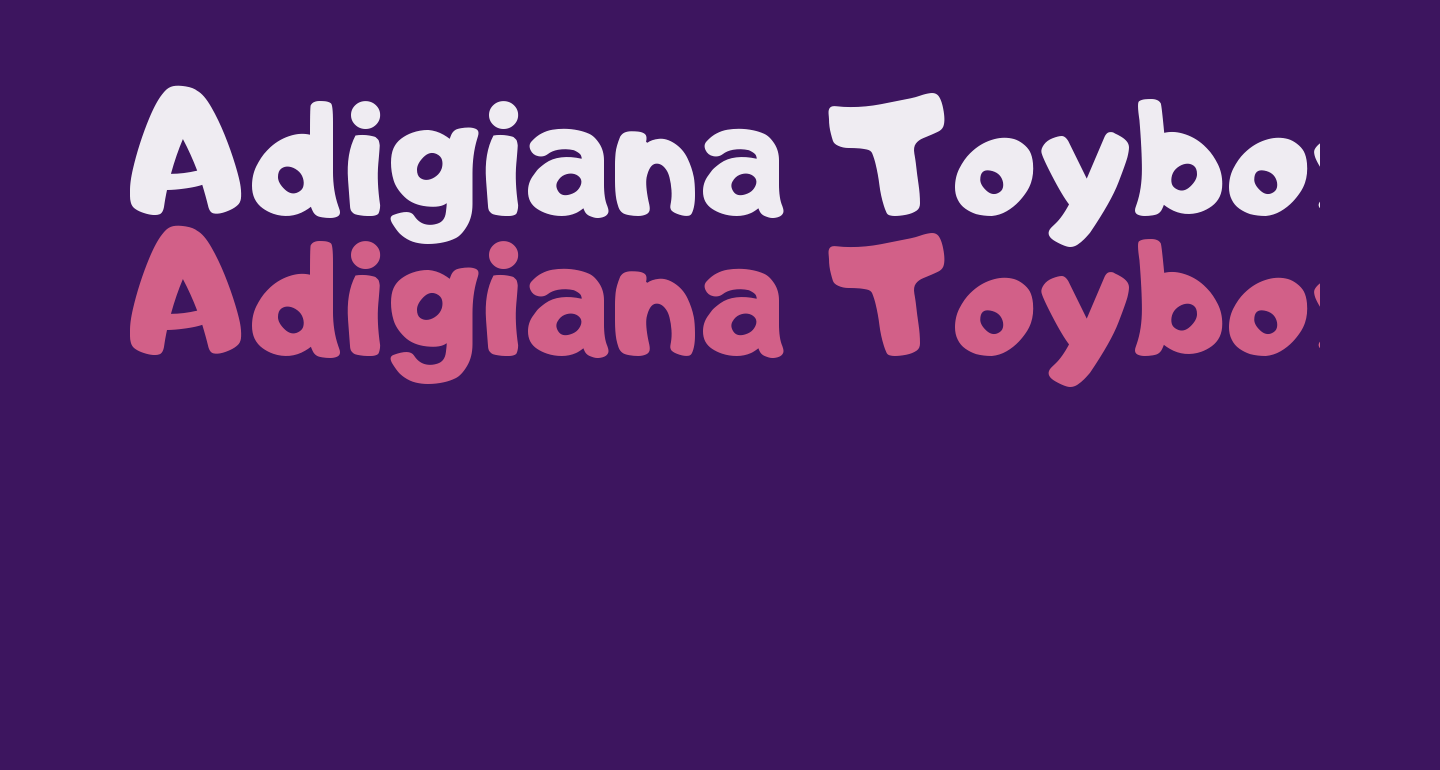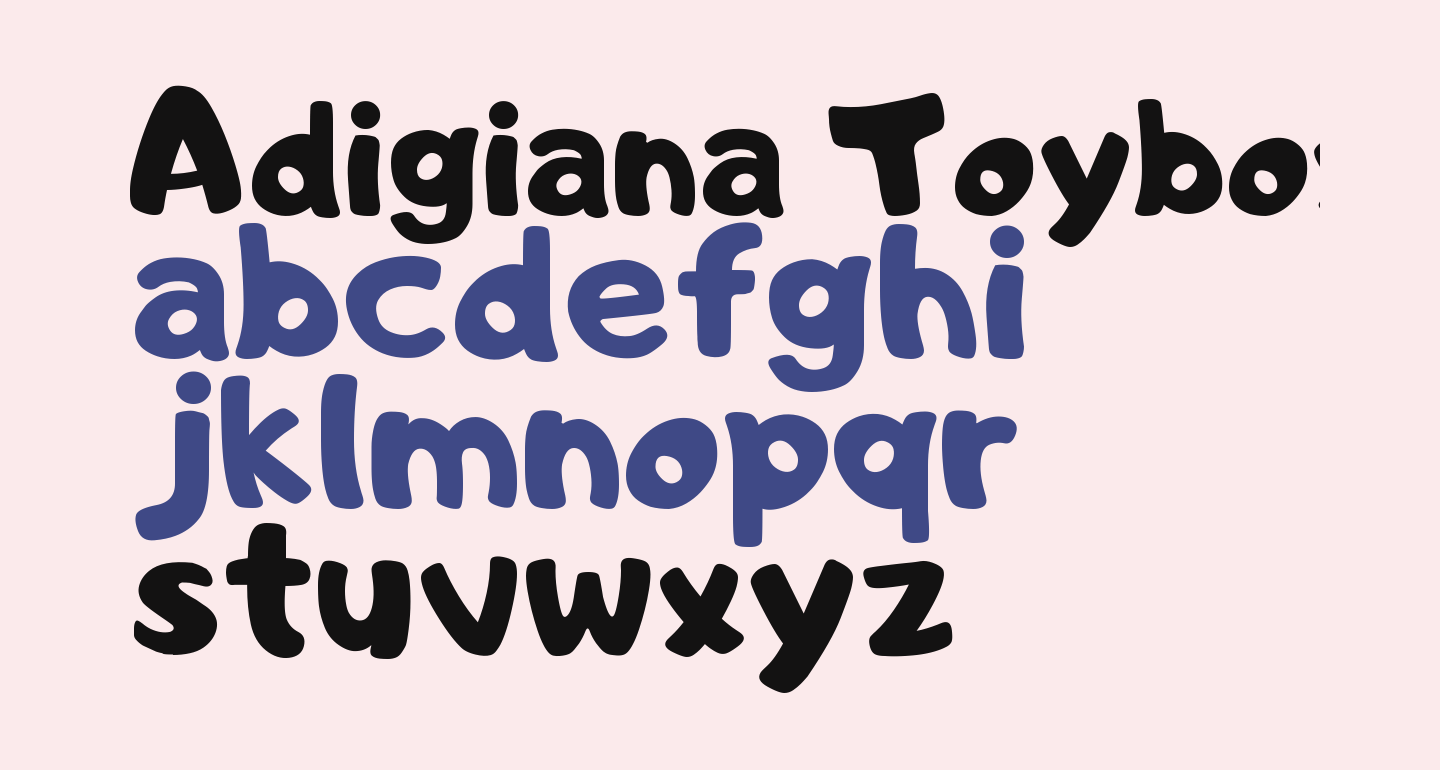
Adigiana Toybox Font Free . Adigiana ui is now adigiana toybox, which is based on/off of the toys r us logo. This font is an edit of toybox by chris. ️ this font has been downloaded 90,000+ times. free download of adigiana ui font. Every font is free to download! $ commercial > adobe.com. Similar fonts for adigiana toybox regular from myfonts.com. download free for personal use only. Click to find the best 3 free fonts in the adigiana style. Released in 2015 by 538fonts and licensed for personal and. ️ customize your own preview on. the adigiana toybox regular font contains 412 beautifully designed characters. about fontsrus regular font adigiana ui is now adigiana toybox, which is based on/off of the toys r us logo. download and install the adigiana toybox regular font for free from ffonts.net. looking for adigiana fonts?
This font is an edit of toybox by chris. download and install the adigiana toybox regular font for free from ffonts.net. $ commercial > adobe.com. Every font is free to download! Released in 2015 by 538fonts and licensed for personal and. Similar fonts for adigiana toybox regular from myfonts.com. free download of adigiana ui font. about fontsrus regular font adigiana ui is now adigiana toybox, which is based on/off of the toys r us logo. Click to find the best 3 free fonts in the adigiana style. ️ customize your own preview on.
Adigiana UI Font 538Fonts FontSpace Adigiana Toybox Font Free ️ customize your own preview on. Similar fonts for adigiana toybox regular from myfonts.com. free download of adigiana ui font. Adigiana ui is now adigiana toybox, which is based on/off of the toys r us logo. ️ this font has been downloaded 90,000+ times. This font is an edit of toybox by chris. download and install the adigiana. Adigiana Toybox Font Free.
Adigiana Ultra Abstract Fonts Download Free Fonts Adigiana Toybox Font Free Click to find the best 3 free fonts in the adigiana style. Similar fonts for adigiana toybox regular from myfonts.com. Released in 2015 by 538fonts and licensed for personal and. free download of adigiana ui font. looking for adigiana fonts? ️ this font has been downloaded 90,000+ times. the adigiana toybox regular font contains 412 beautifully designed. Adigiana Toybox Font Free.
Adigiana Ultra Font Adigiana Toybox Font Free download free for personal use only. Click to find the best 3 free fonts in the adigiana style. Similar fonts for adigiana toybox regular from myfonts.com. Adigiana ui is now adigiana toybox, which is based on/off of the toys r us logo. free download of adigiana ui font. about fontsrus regular font adigiana ui is now adigiana. Adigiana Toybox Font Free.
Adigiana UI Font Zillion Adigiana Toybox Font Free This font is an edit of toybox by chris. the adigiana toybox regular font contains 412 beautifully designed characters. ️ customize your own preview on. looking for adigiana fonts? free download of adigiana ui font. Adigiana ui is now adigiana toybox, which is based on/off of the toys r us logo. $ commercial > adobe.com. . Adigiana Toybox Font Free.